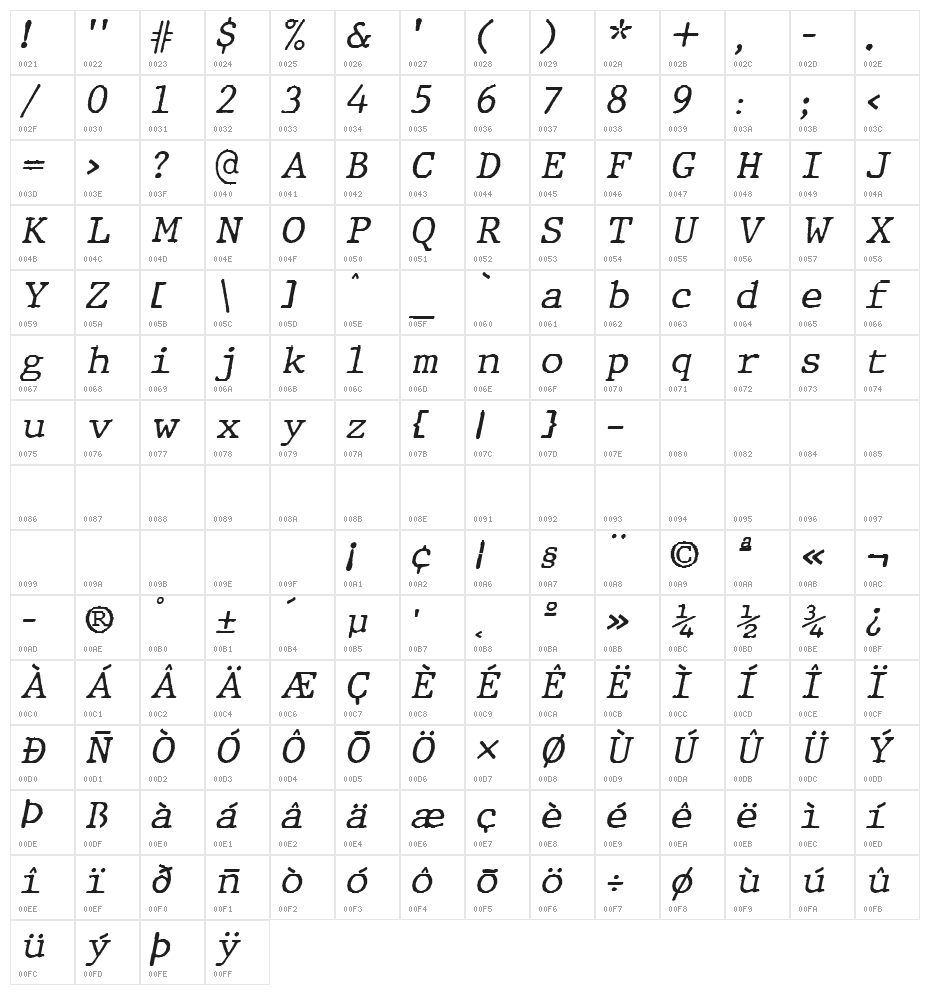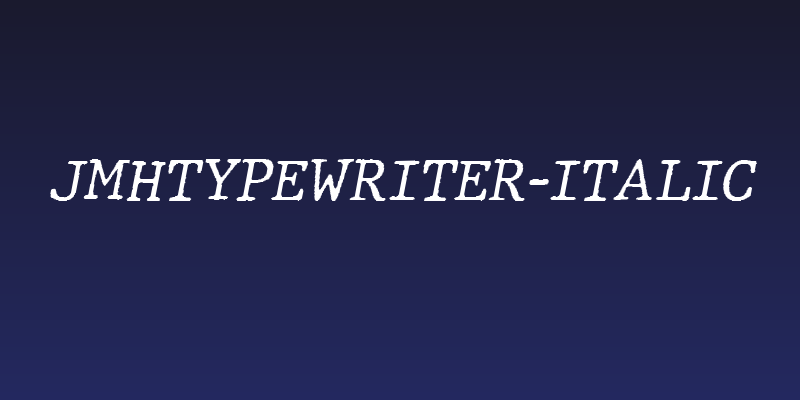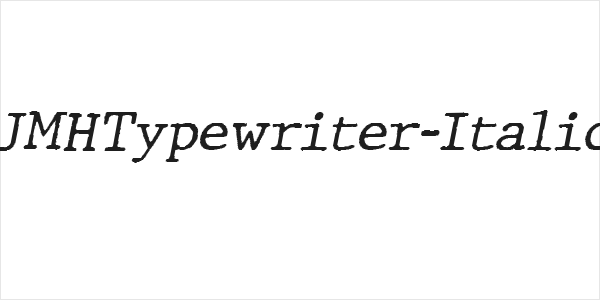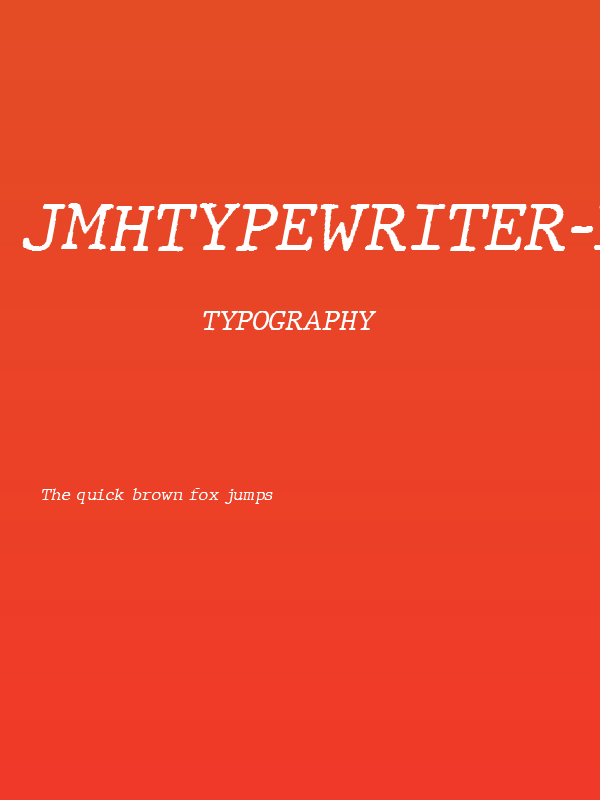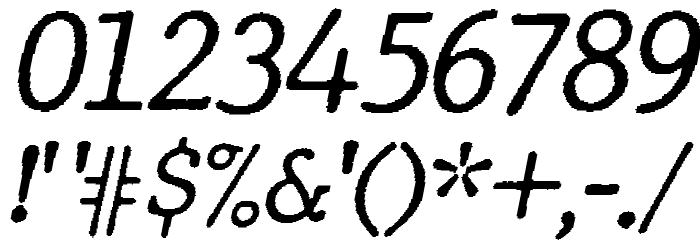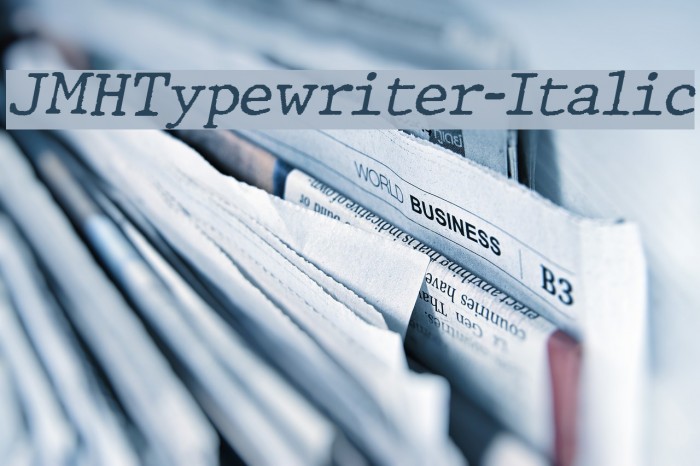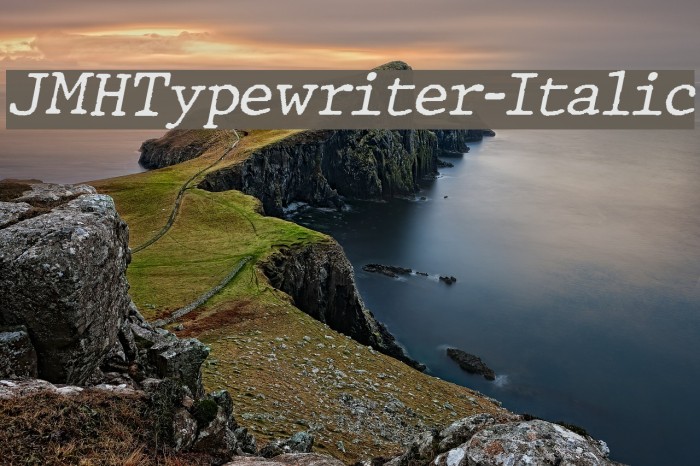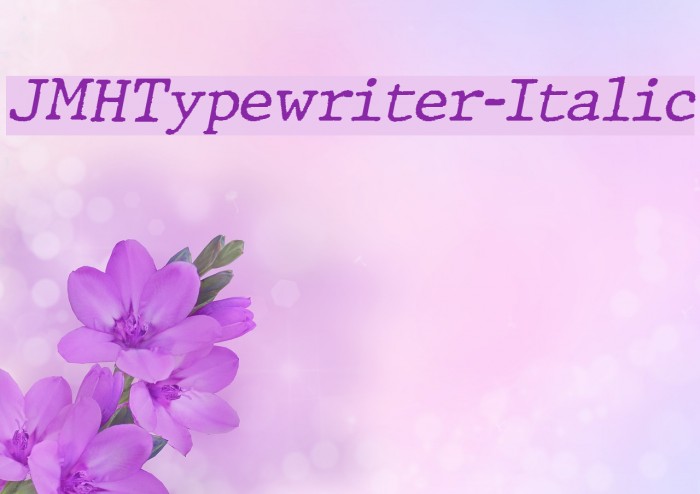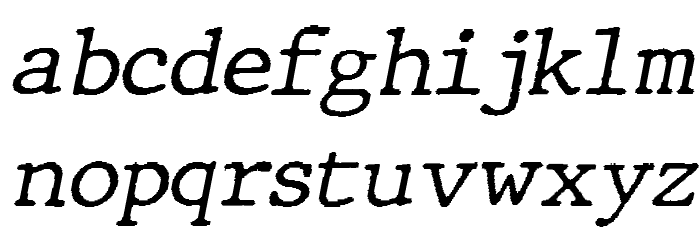
JMHTypewriter-Italic Font
This typewriter-style font features a classic, monospaced design with a distinct italic slant. Each character is evenly spaced, maintaining the traditional typewriter aesthetic. The letters are slightly rounded, giving a softer appearance compared to typical typewriter fonts. The numerals and special characters are consistent with the overall style, providing a cohesive look. The font's uniformity and clarity make it suitable for conveying a vintage or retro feel, while the italic angle adds a touch of elegance and dynamism.
| Proposed Projects | Ideal for retro-themed designs, typewriter art, coding projects, or any creative work requiring a vintage typewriter aesthetic. |